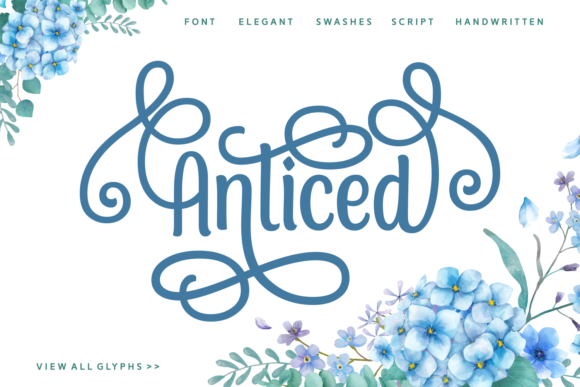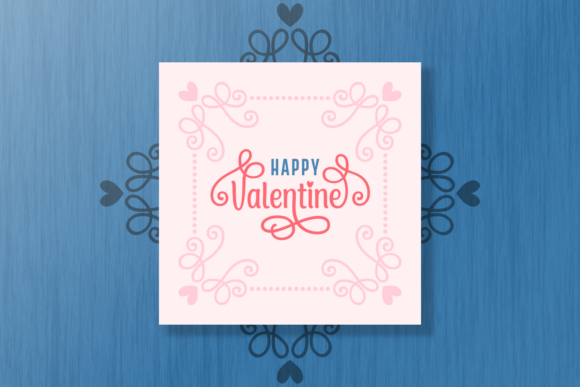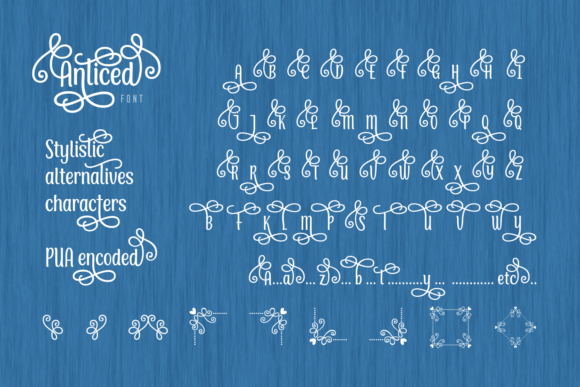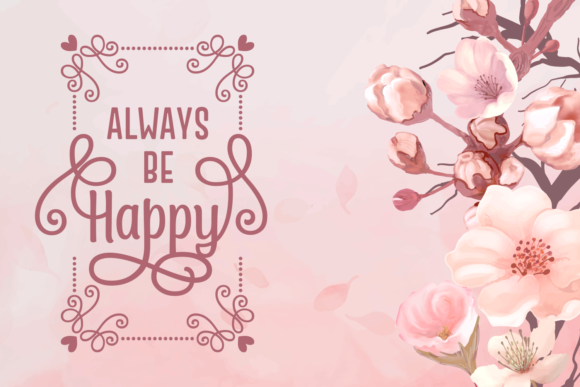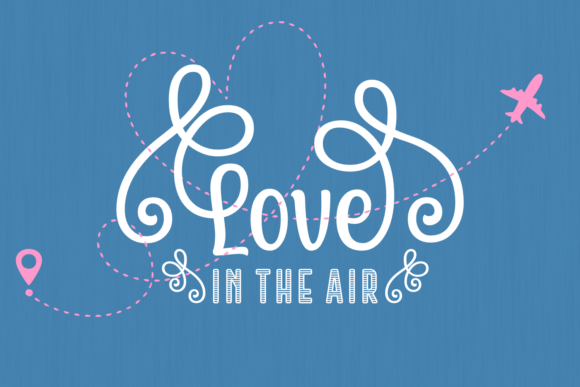
Anticed Font
About Anticed Font
Anticed is a sweet, soft hand-lettered script. The playful rounded characters make it the perfect font for creating stunning crafts art. Anticed comes packed with PUA encoded swashes, that will allow you to add a decorative touch within seconds. Fall in love with its authentic feel and use it to create gorgeous wedding invitations, beautiful stationary art, eye-catching social media posts, and cute greeting cards.